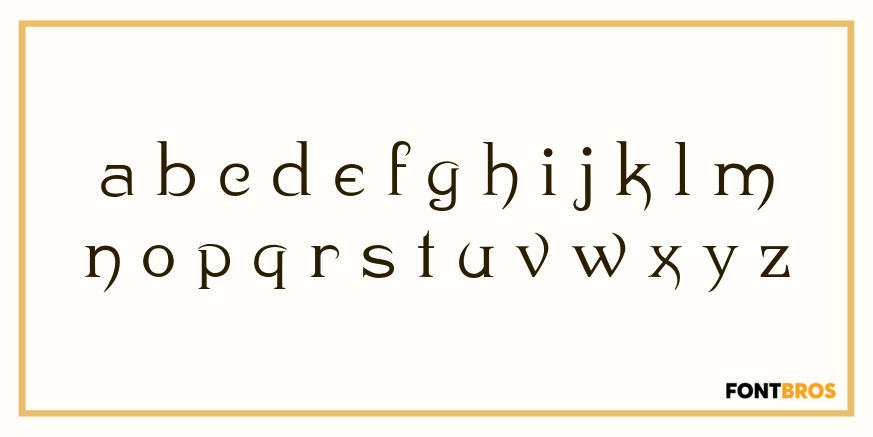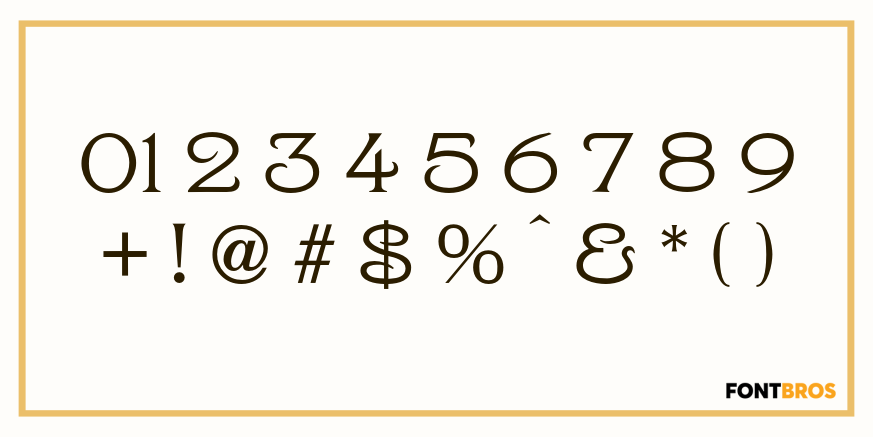
Huron
Font Family by Solotype
A Barnhart Bros. & Spindler type from the late victorian period.
We have been faithful to the spirit of the original buy ?calmed down? a few of the lowercase letters to make the lines read more smoothly.